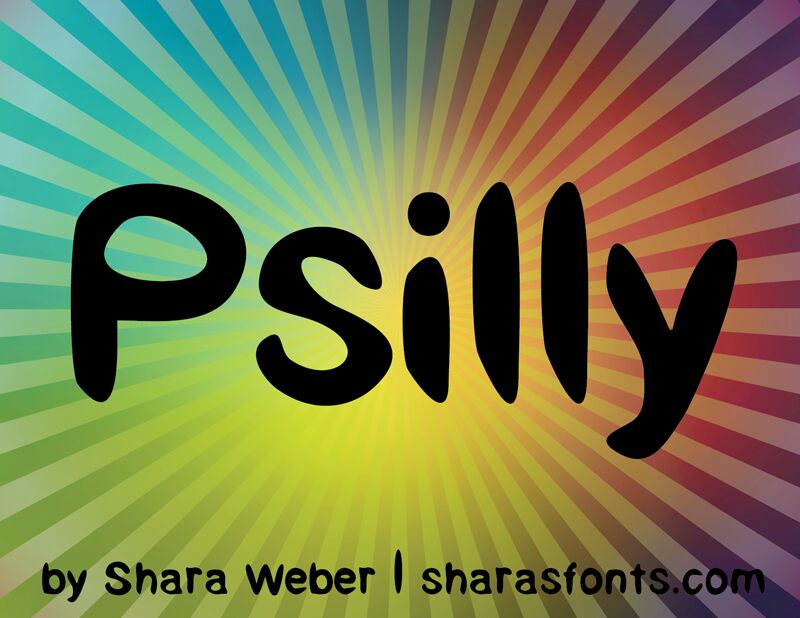
Psilly is a captivating display font that exudes a playful and whimsical charm. Designed by Shara Weber, this font boasts a distinctive character with its flowing, organic letterforms and unexpected curves. The asymmetric shapes and varying line widths create a sense of movement and energy, making Psilly an excellent choice for attention-grabbing headlines, vibrant branding, and imaginative editorial designs.
The font's versatility extends beyond its visual appeal. Psilly's expressive nature lends itself well to a diverse range of applications, from playful children's products to bold, contemporary fashion campaigns. Its unique personality can add a touch of personality and flair to any design project, making it a valuable asset in the creative toolkit.